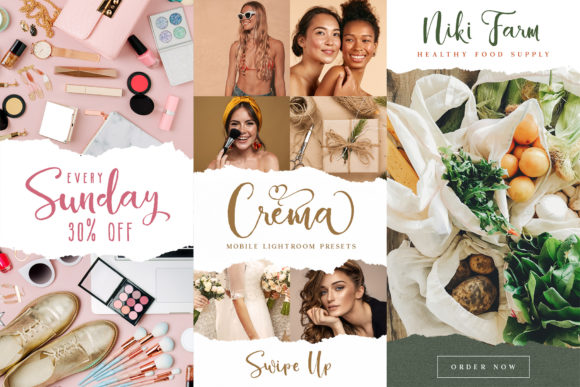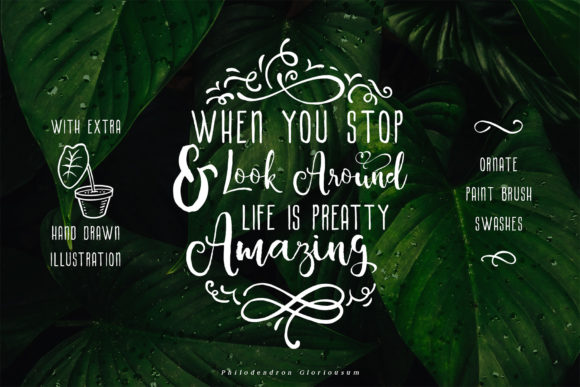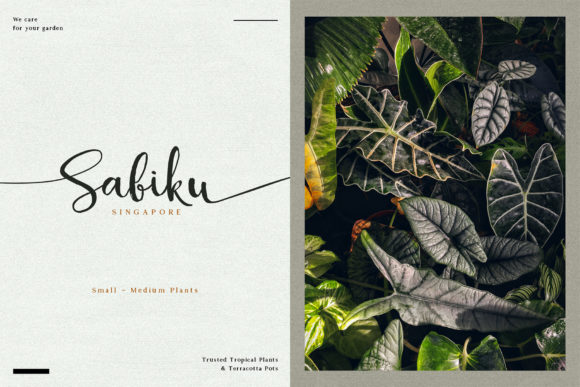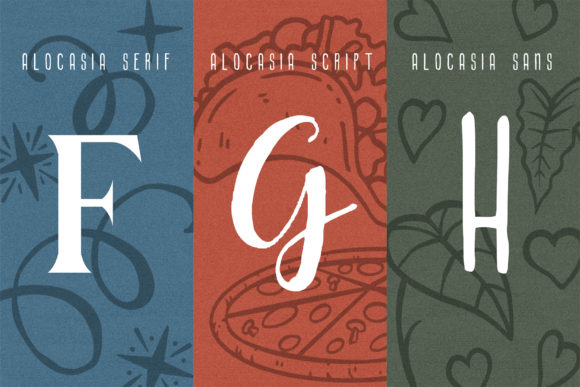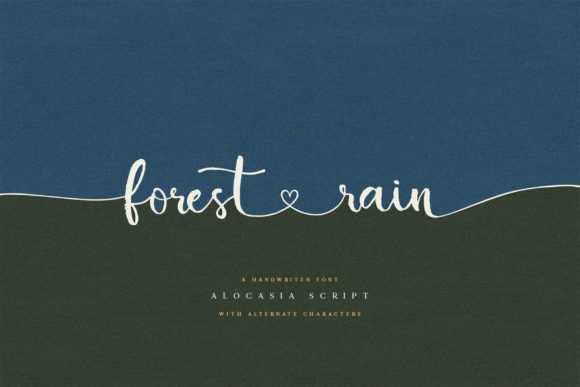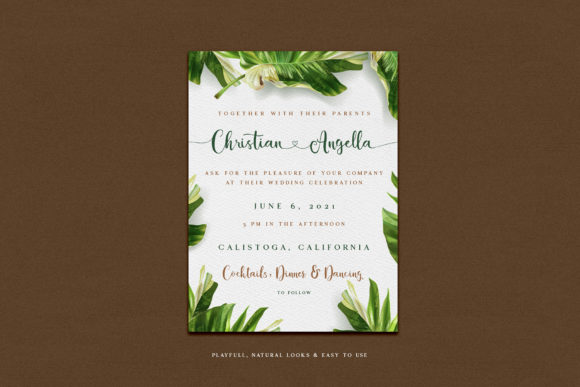
Unlock Creative Potential with Alocasia Font: The Ultimate Trio for Stunning Designs
Are you a designer or crafter looking for a font that can elevate your creative projects to new heights? Look no further than Alocasia Font, a spectacular trio of serif, sans, and script fonts that is incredibly versatile and perfect for a wide range of designs. In this article, we’ll dive into the features and benefits of Alocasia Font and explore how it can bring your designs to life.
The Power of Versatility: A Trio of Fonts
Alocasia Font is not just a single font, but a trio of fonts that can be used separately or together to create stunning designs. The serif, sans, and script fonts are designed to work in harmony, providing a cohesive look that is both elegant and sophisticated. Whether you’re creating a logo, branding materials, or marketing collateral, Alocasia Font has got you covered.
One of the standout features of Alocasia Font is its PUA (Private Use Area) encoding. This means that you can access all of the glyphs and swashes with ease, giving you complete creative control over your designs. With PUA encoding, you can effortlessly swap out glyphs and swashes to create unique and eye-catching designs that set you apart from the competition.
Design Features: Varying Baseline, Smooth Lines, and Gorgeous Glyphs
Alocasia Font boasts a range of design features that make it truly special. The font features a varying baseline, which adds a touch of elegance and sophistication to your designs. The smooth lines and gorgeous glyphs are meticulously crafted to provide a beautiful and refined look that is perfect for high-end designs. Additionally, the font includes stunning alternates that give you even more creative options.
Bring Your Designs to Life with Alocasia Font
So, how can you use Alocasia Font to bring your designs to life? Here are just a few ideas to get you started:
- Logos and branding materials: Use Alocasia Font to create a stunning logo or branding materials that showcase your brand’s personality and style.
- Marketing collateral: Elevate your marketing materials, such as brochures, flyers, and posters, with Alocasia Font’s elegant and sophisticated look.
- Web design: Use Alocasia Font to create a beautiful and refined website that showcases your brand’s style and personality.
- Crafting and DIY projects: Add a touch of elegance and sophistication to your crafting and DIY projects, such as handmade cards, gift tags, and more.
Why Choose Alocasia Font?
So, why should you choose Alocasia Font for your design projects? Here are just a few reasons:
- Versatility: Alocasia Font is incredibly versatile, making it perfect for a wide range of designs and projects.
- Ease of use: With PUA encoding, you can easily access all of the glyphs and swashes, making it easy to use and customize.
- High-quality design: Alocasia Font is meticulously crafted with smooth lines, gorgeous glyphs, and stunning alternates, providing a beautiful and refined look.
- Unique and eye-catching: With Alocasia Font, you can create unique and eye-catching designs that set you apart from the competition.
In conclusion, Alocasia Font is a powerful and versatile font trio that can elevate your designs to new heights. With its PUA encoding, design features, and high-quality craftsmanship, it’s the perfect choice for designers and crafters looking to create stunning designs. Whether you’re creating logos, branding materials, marketing collateral, or crafting and DIY projects, Alocasia Font is sure to bring your designs to life.